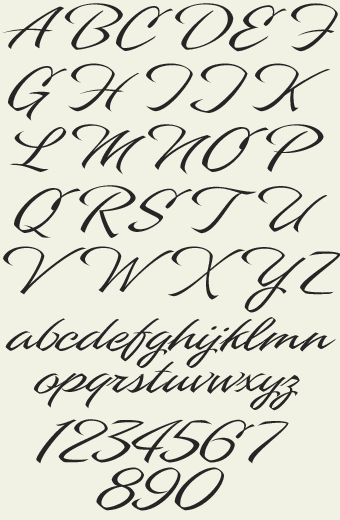
Dave Correll's retro style font is perfect for adding an 80's flair to your designs. With unlimited uses and a large selection of alternates, this casual script is sure to become one of your favorites. You might also like: Alpine Script & Sofia Script.